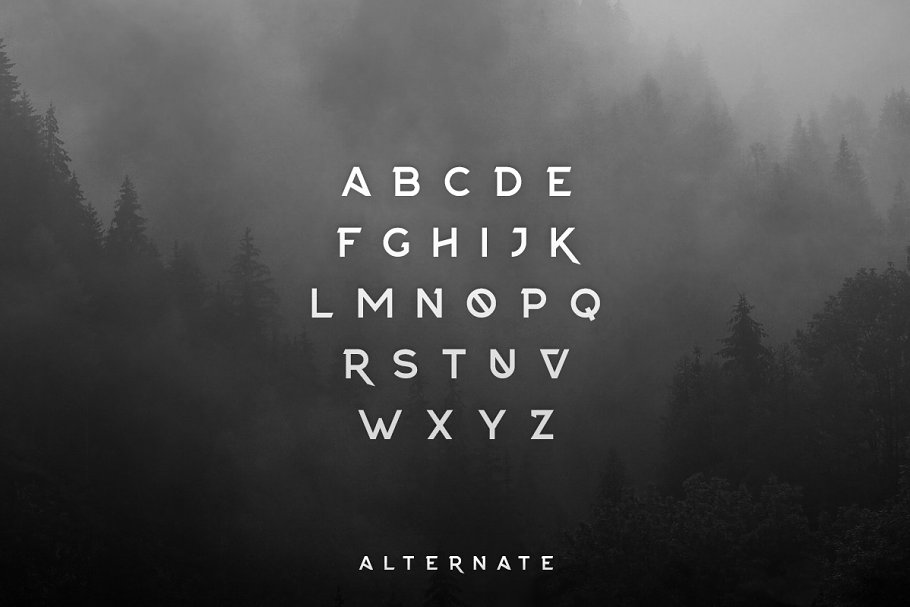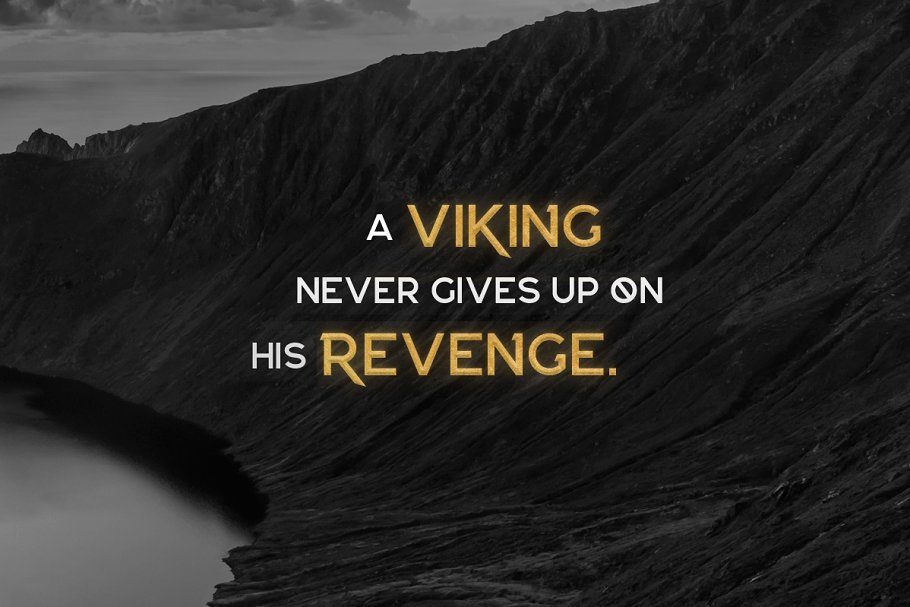
About the Njord Typeface Font
Njord is a display typeface that features a unique alternate style, The typeface includes uppercase multilingual letters, numbers and punctuation, I’ve found the font to be great for logos, titles and I enjoy using it with really wide spacing, Feel free to contact me via my website from the link below if you have any questions, https://www, tugcu